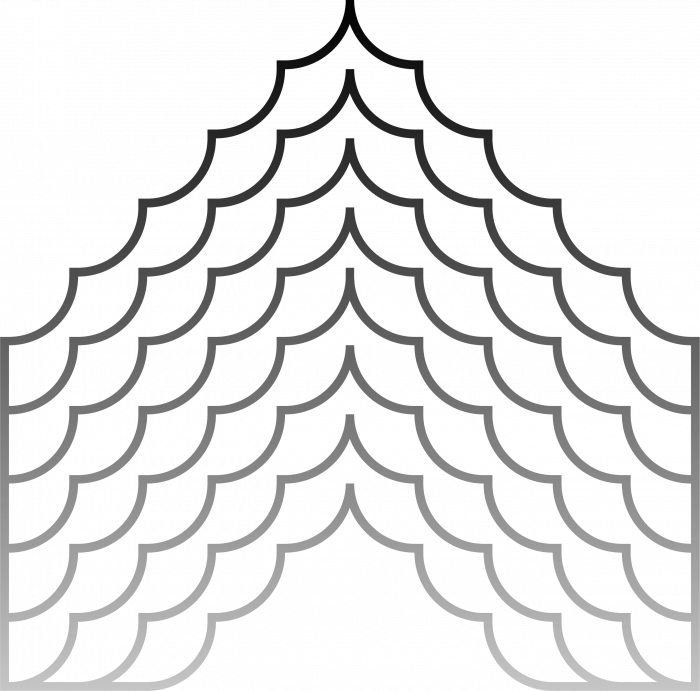
I love how the circle arc brick's rotational orientation sort of highlights the geometry and stroke direction of certain letterparts. Works very well in distinguishing a letterform. Very clever and intuitive implementation of modular minimalism.
Unexpected pleasure but I must say the pattern works well. It is very pleasant to look at, although it does not resolve a few glyphs very well. All these little curves remind me a lot of your cut paper works, have you thought about using the font for that? Forgive my intrusion, but I love to snoop inside everything you show here (always triying it constructively). Thanks, compañero!
Thanks @elmoyenique, I'm still trying to refine some glyphs that don't feel quite right yet. No plans for using this at the moment, but I think it could work wel in lasercut.
I love how the circle arc brick's rotational orientation sort of highlights the geometry and stroke direction of certain letterparts. Works very well in distinguishing a letterform. Very clever and intuitive implementation of modular minimalism.
Unexpected pleasure but I must say the pattern works well. It is very pleasant to look at, although it does not resolve a few glyphs very well. All these little curves remind me a lot of your cut paper works, have you thought about using the font for that? Forgive my intrusion, but I love to snoop inside everything you show here (always triying it constructively). Thanks, compañero!
Thanks @elmoyenique, I'm still trying to refine some glyphs that don't feel quite right yet. No plans for using this at the moment, but I think it could work wel in lasercut.